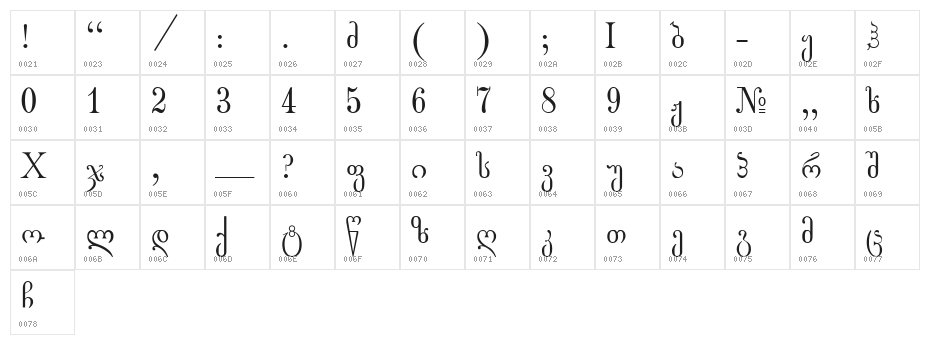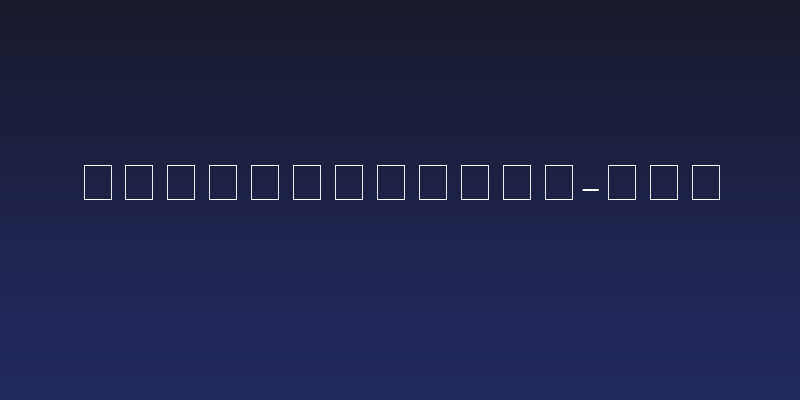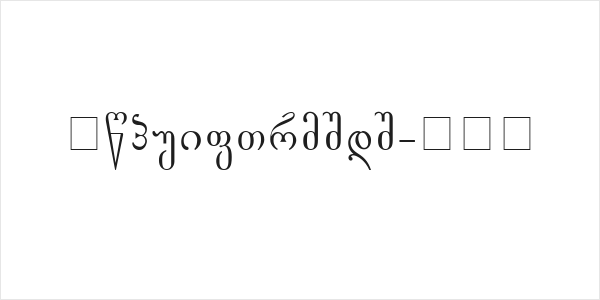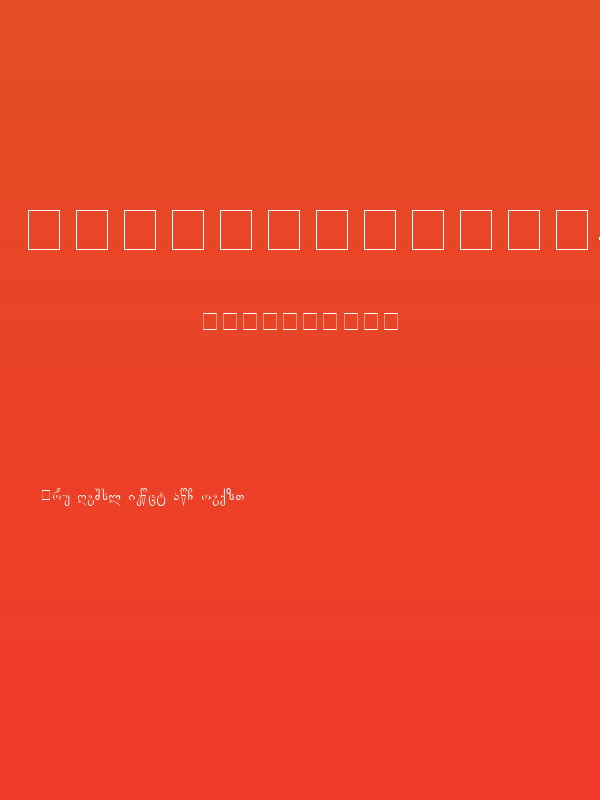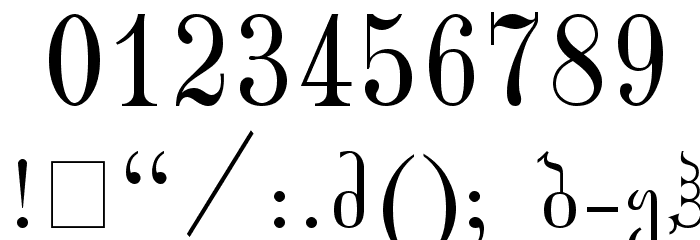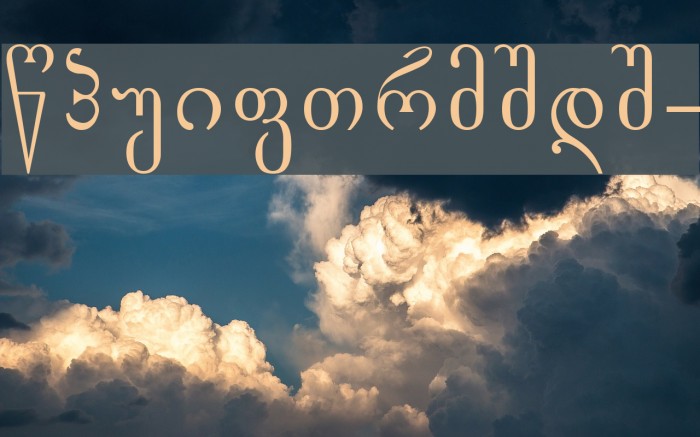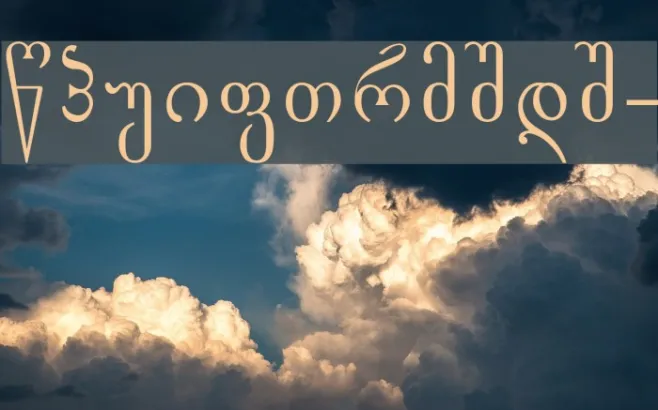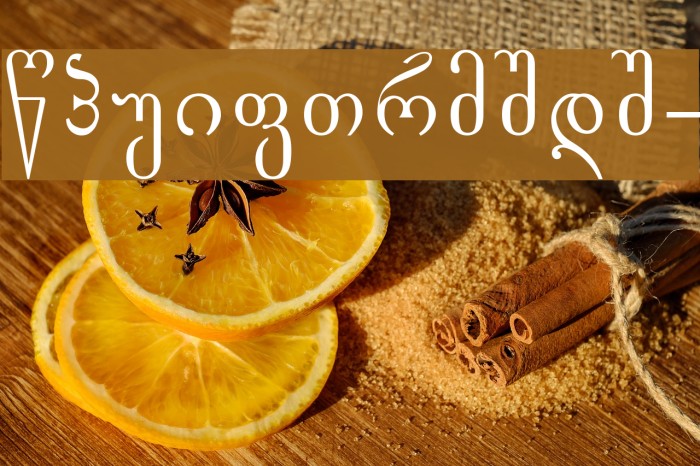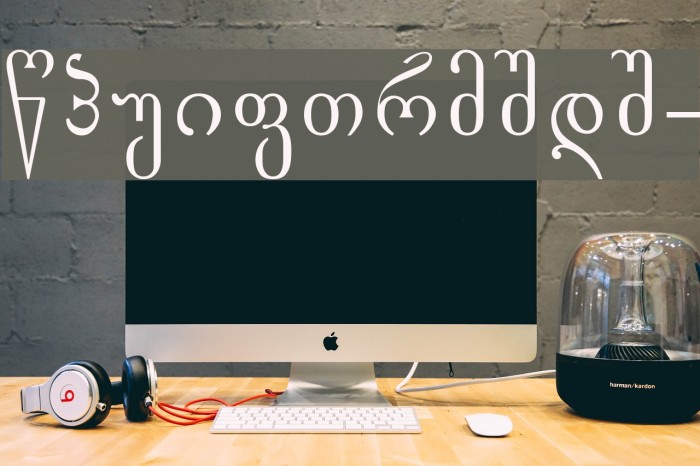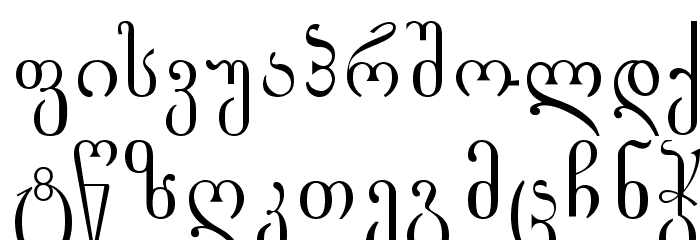
Gogebashvili-ITV Font
Gogebashvili-ITV Description
This font features a unique and elegant script style, characterized by its flowing and interconnected letterforms. The design incorporates a blend of traditional and modern elements, creating a sophisticated appearance. The characters exhibit a high level of detail, with intricate curves and flourishes that add a decorative touch. The numerals are bold and clear, ensuring readability while maintaining the overall aesthetic. Special characters are thoughtfully integrated, complementing the font's artistic style. This font is ideal for projects that require a touch of elegance and creativity.